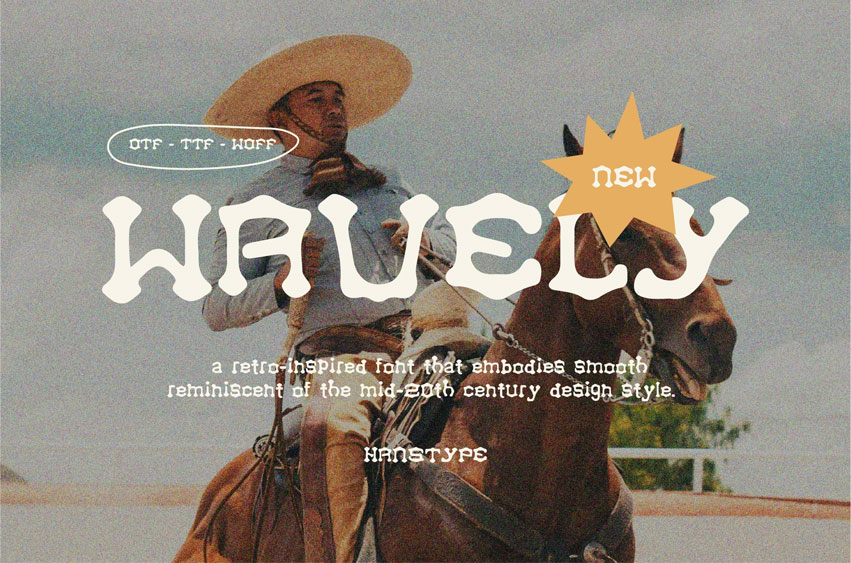
Wavely Font
Wavely Font is a retro-inspired font that embodies smooth, flowing curves and a sense of rhythm, reminiscent of the mid-20th century design style.
Its elegant, rounded letterforms evoke a sense of nostalgia while maintaining a contemporary charm.